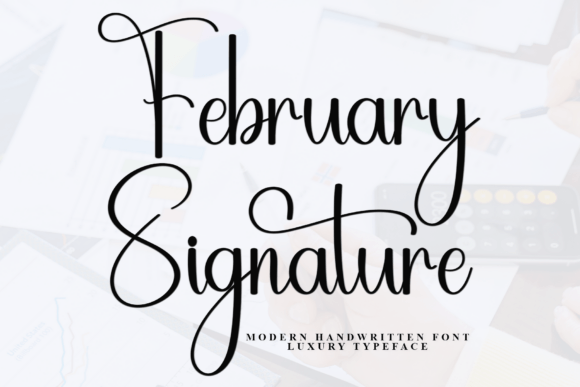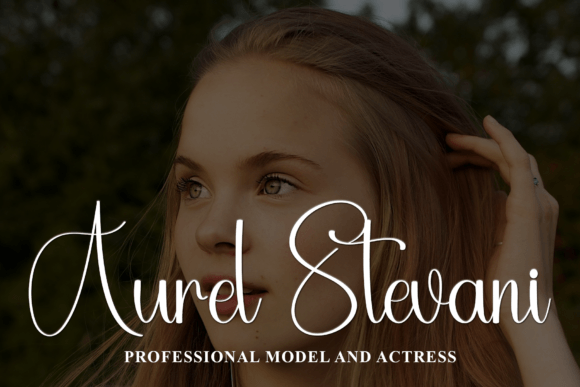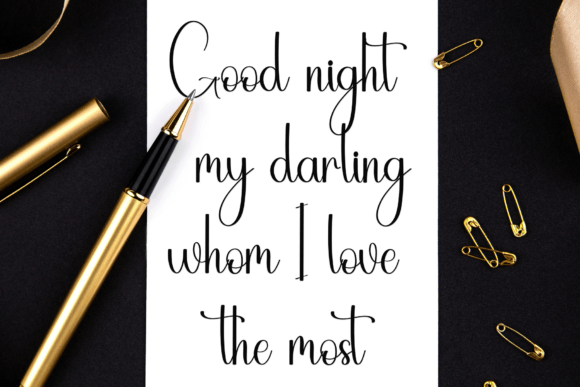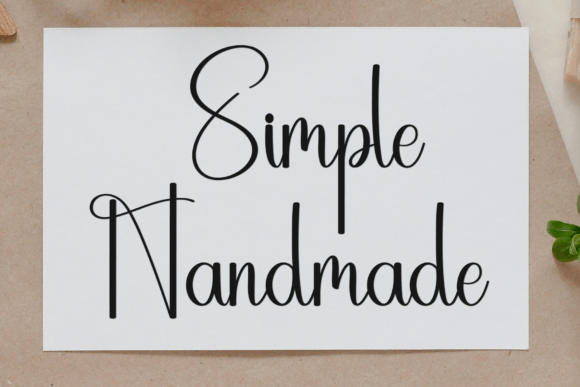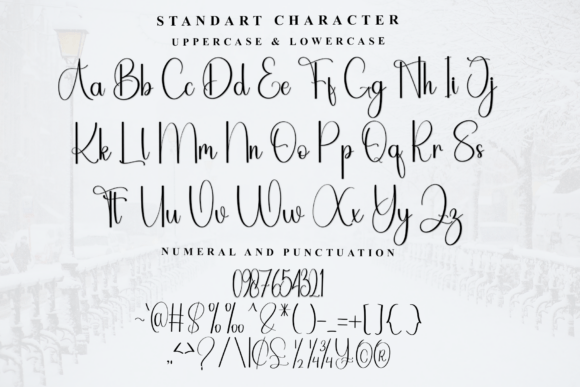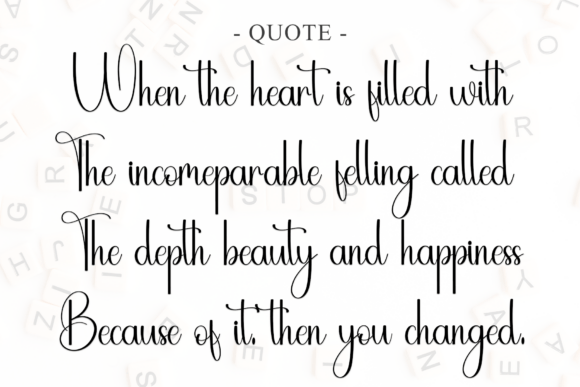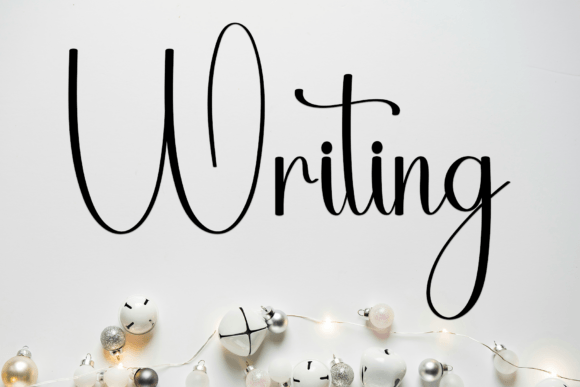
Discover Your Signature Style with February Signature Font
As a designer, you’ve probably experienced that moment when a project comes together, and everything feels just right. The colors, the layout, the typography – it’s like magic. And for many of us, it all starts with the right font. That’s where the February Signature Font comes in – a beautiful, handcrafted font designed to elevate your business and personal projects.
This stunning font is perfect for making a lasting impression on your audience, whether it’s through a bold logo, a romantic wedding invitation, or a striking YouTube thumbnail. With its smooth touch and elegant strokes, the February Signature Font is sure to add a natural feel to your work. As a designer, you know how valuable a great font can be – and with the February Signature Font, you’ll be able to take your designs to the next level.
February Signature Font Key Features
- Font Family: February Signature Font is a modern, elegant script font designed for personal and professional use.
- Unique Characteristics: Features a unique, handwritten style with subtle flair and elegance, making it perfect for signature designs, invitations, and personal branding.
- Font Styles: Includes multiple font styles, including Regular, Italic, Bold, and Bold Italic, for added versatility in design projects.
February Signature Font Review
Overall, I’m quite pleased with the February Signature Font. It’s ✨ elegant, ✨ sophisticated, and ✨ perfect for any high-end design project. The font’s unique flair is sure to make your designs stand out.
Here are some of its strengths:
- ✨ Highly customizable: The font offers a range of weights, styles, and sizes to suit your design needs.
- ✨ Versatile: It’s suitable for both digital and print media, making it a great choice for a wide range of projects.
- ✨ Beautiful typography: The font’s curves and lines are perfectly balanced, resulting in a beautiful and elegant visual effect.
- ⚠️ Limited character set: The font may not have the full range of characters you need for certain languages or projects.
- ⚠️ Not suitable for all audiences: The font’s high-end aesthetic may not be suitable for more casual or playful designs.
Overall, I think the February Signature Font is a great choice for designers looking to add a touch of elegance and sophistication to their projects. With its high level of customization and versatility, it’s a great addition to any designer’s toolkit.
Use the February Signature Font to add a touch of elegance and sophistication to your designs. Experiment with different font sizes, colors, and styles to create a unique look. Use it for titles, headings, and body text to create a cohesive and visually appealing design.
The February Signature Font is ideal for:
- Blog posts and social media graphics
- Special occasion cards and gifts